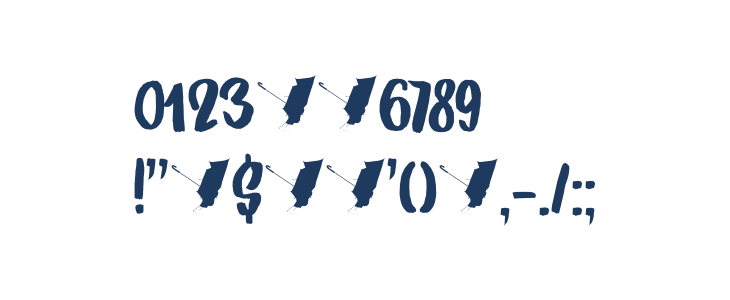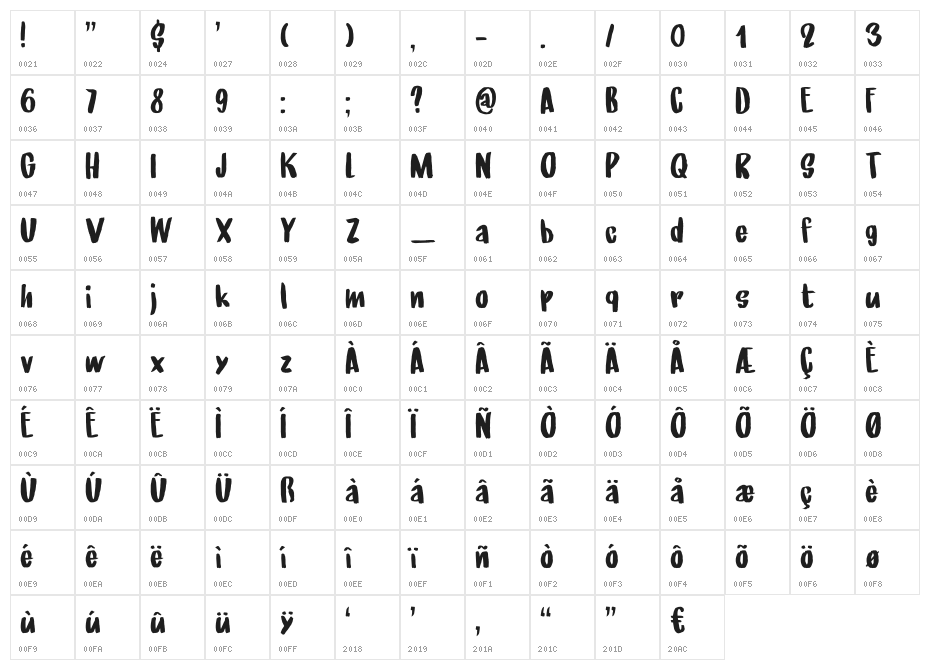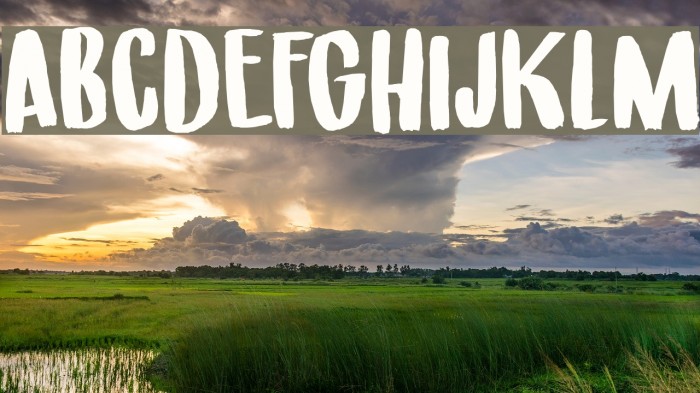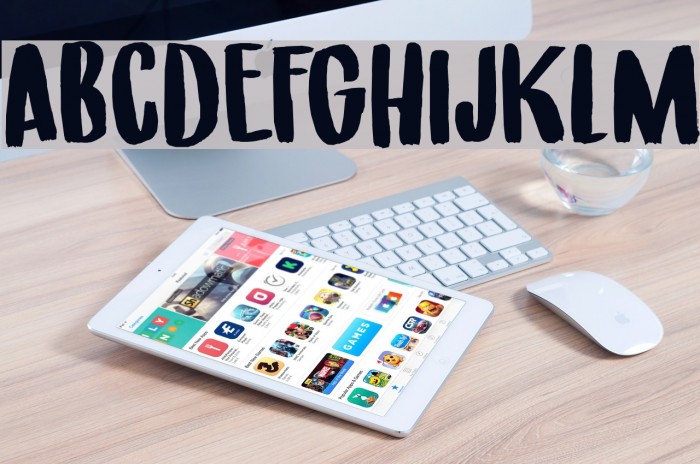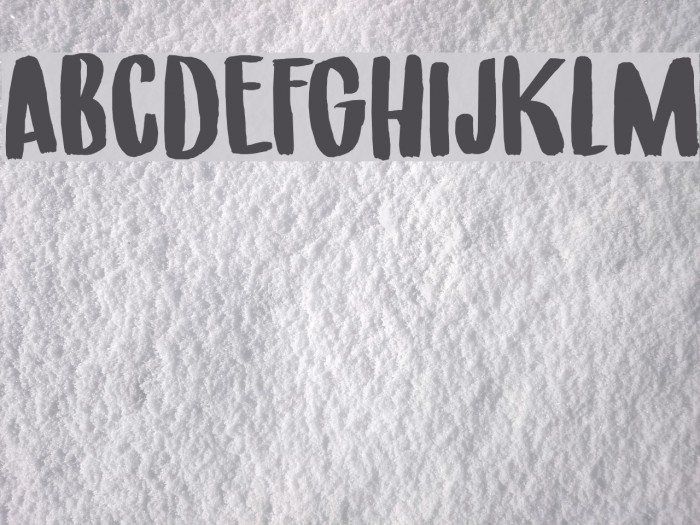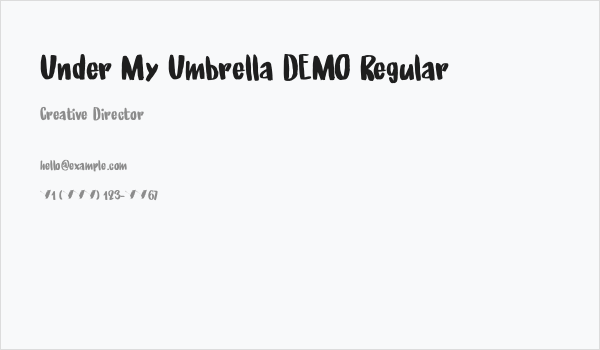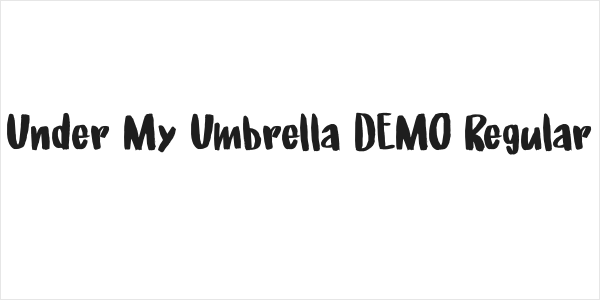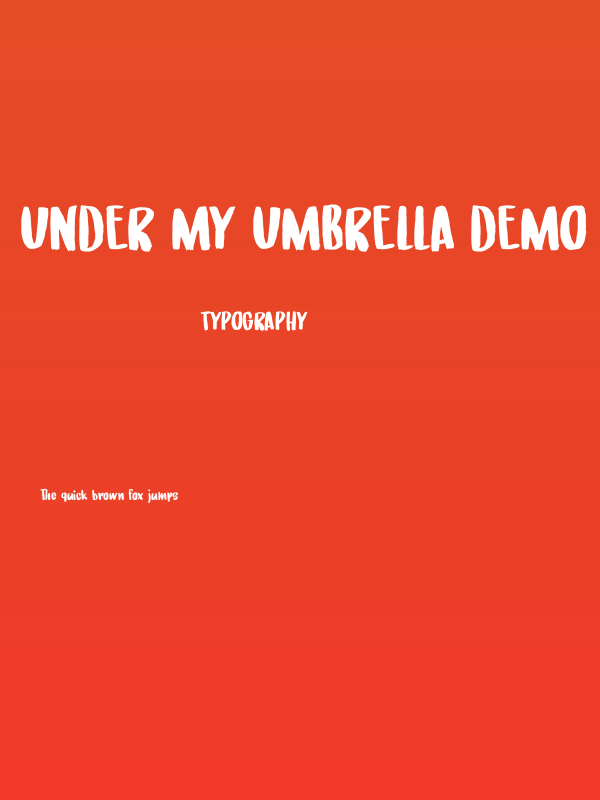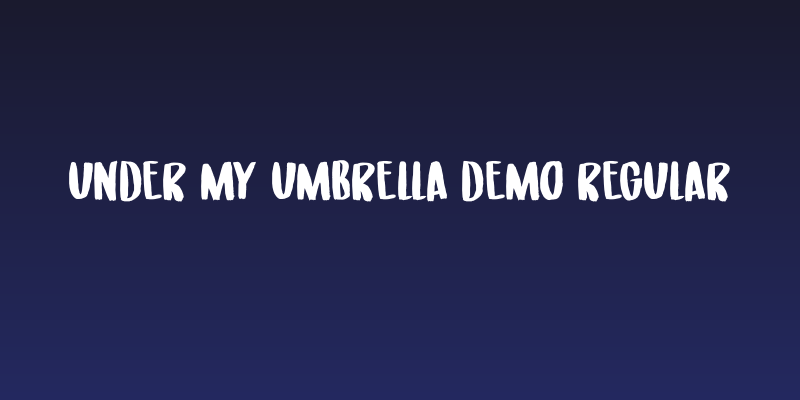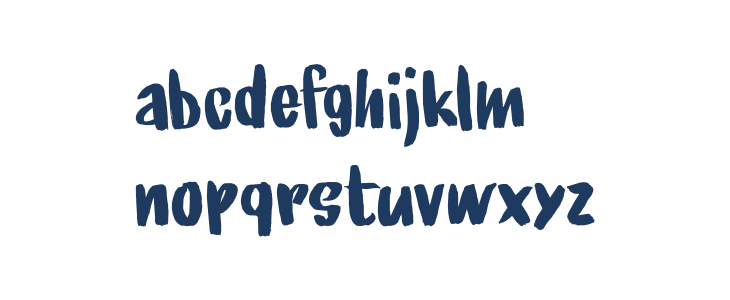
Under My Umbrella DEMO Regular Font
Under My Umbrella DEMO Regular Description
This font features a bold, playful style with a hand-painted appearance. The characters are thick and slightly irregular, giving it a casual and artistic feel. The uppercase letters are robust and dynamic, while the lowercase letters maintain a consistent flow. Numbers and special characters are creatively integrated, with some symbols incorporating umbrella motifs, adding a unique decorative touch. The overall design is expressive and eye-catching, suitable for projects that require a fun and informal vibe.
Hanoded - David Kerkhoff - www.hanodedfonts.com
| Proposed Projects | Ideal for creative projects such as posters, greeting cards, children's books, and branding materials that aim to convey a fun and informal atmosphere. |